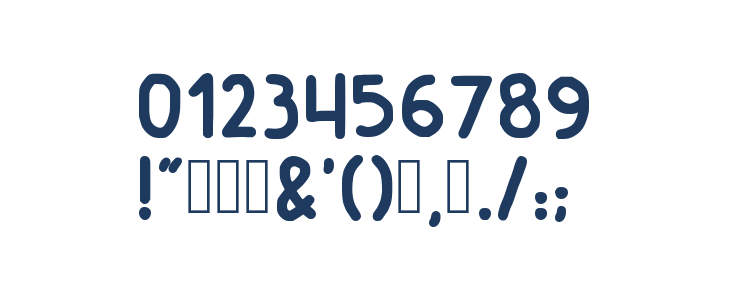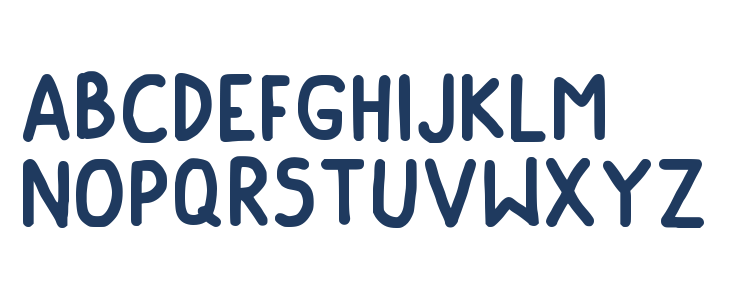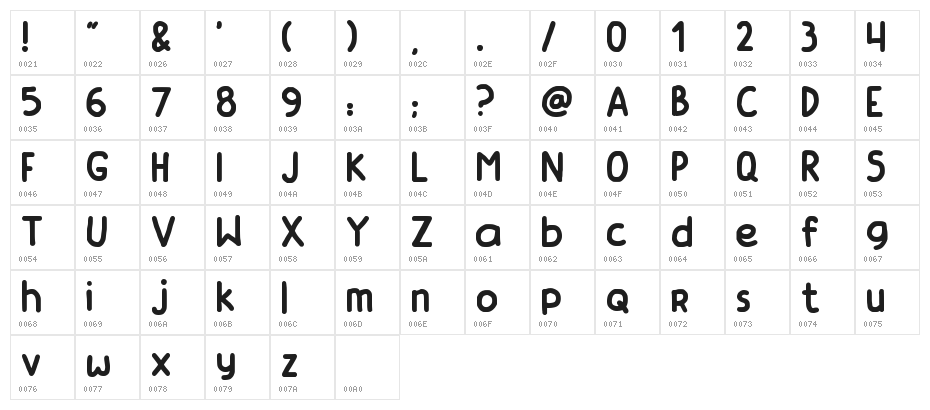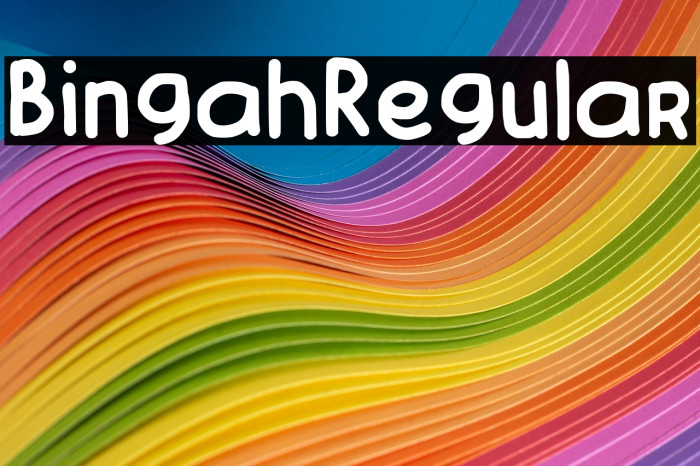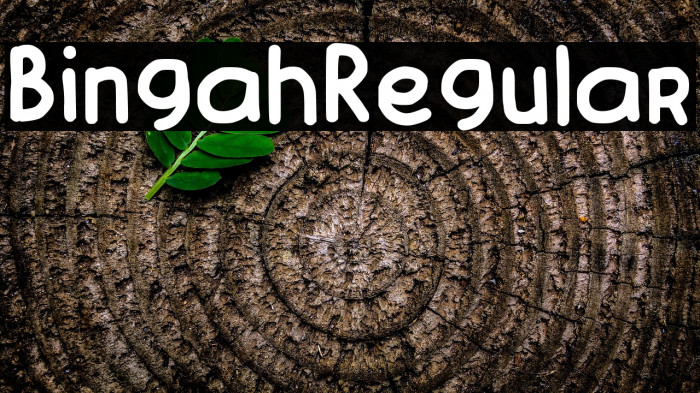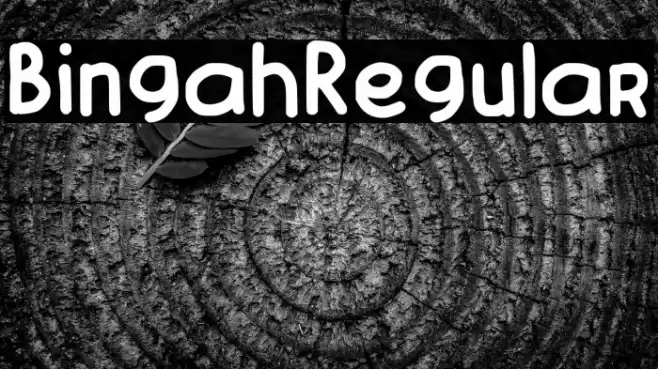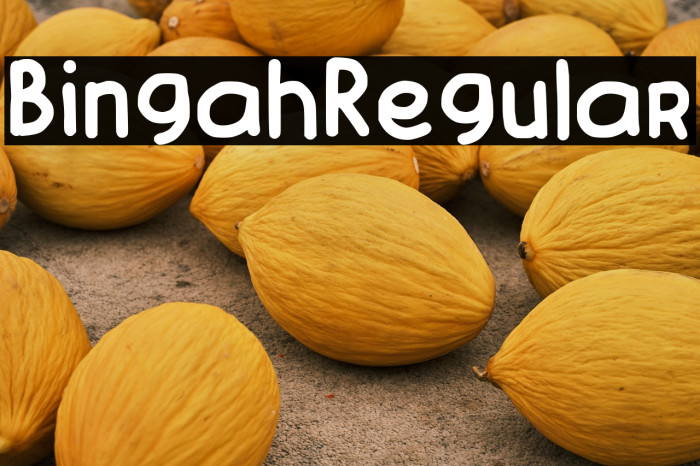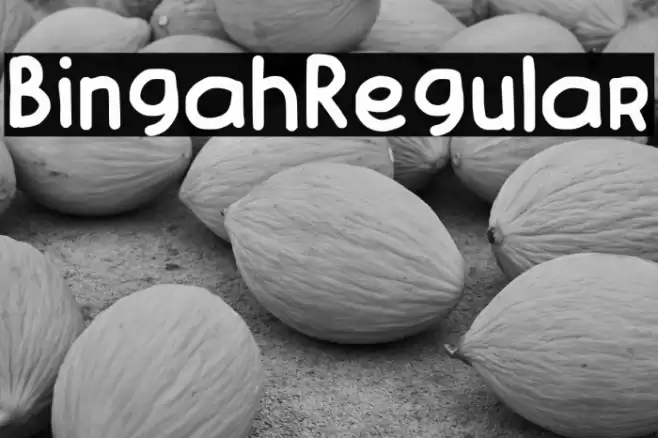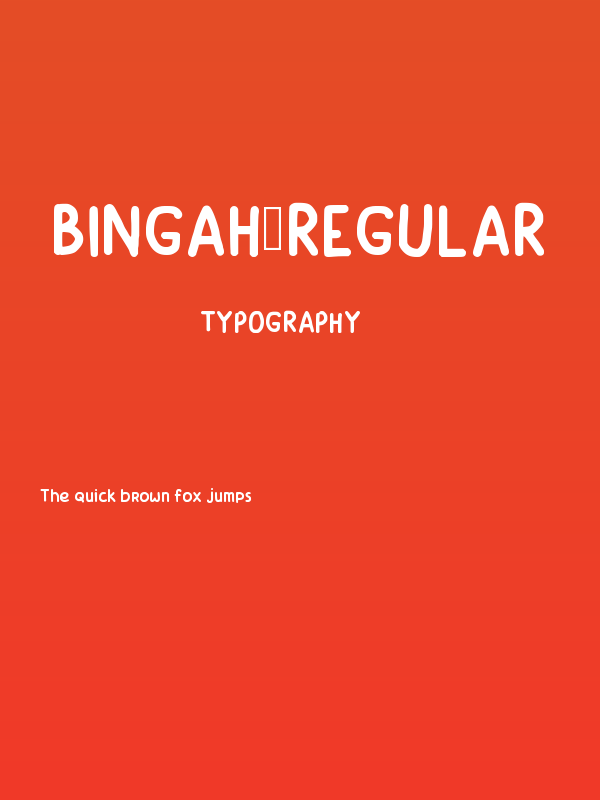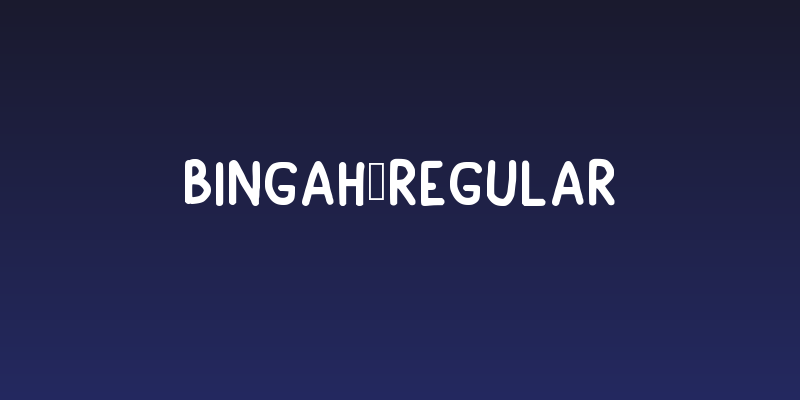
Bingah-Regular Font
Bingah-Regular Description
A playful, rounded, handwritten style font with a casual and friendly appearance.
| Overall Style | Casual, Friendly, Playful |
| Use Case | Headlines, Body text, Invitations, Children's materials |